July is hotting up to be a season of typographic creativity, with designers pushing the boundaries of font design—from thoughtful revivals that reinterpret century-old designs for contemporary use to bold experimental faces that prioritise personality over convention.
And things are only going to get hotter, as a number of design studios have launched new type-focused ventures. Take D8, a creative design agency based in Glasgow with studios in Europe and Asia. They've just launched a sister foundry, abcD8, to design typefaces for brands to own.
D8 Sans
"We were approached by a number of clients as a result," he adds. "So we decided to formalise things with the launch of abcD8. So far, we've cut fonts for Walker's Shortbread, Benromach, Chivas Regal, Canal+ and NPO, the Dutch Public broadcaster; our biggest font project to date."
Meanwhile, Paris design studio Brand Brothers has unveiled a new display foundry focused on experimental typefaces. "Double B Type focuses on typefaces with strong visual and ornamental impact," explains Johan Debit, designer and co-founder at Brand Brothers.
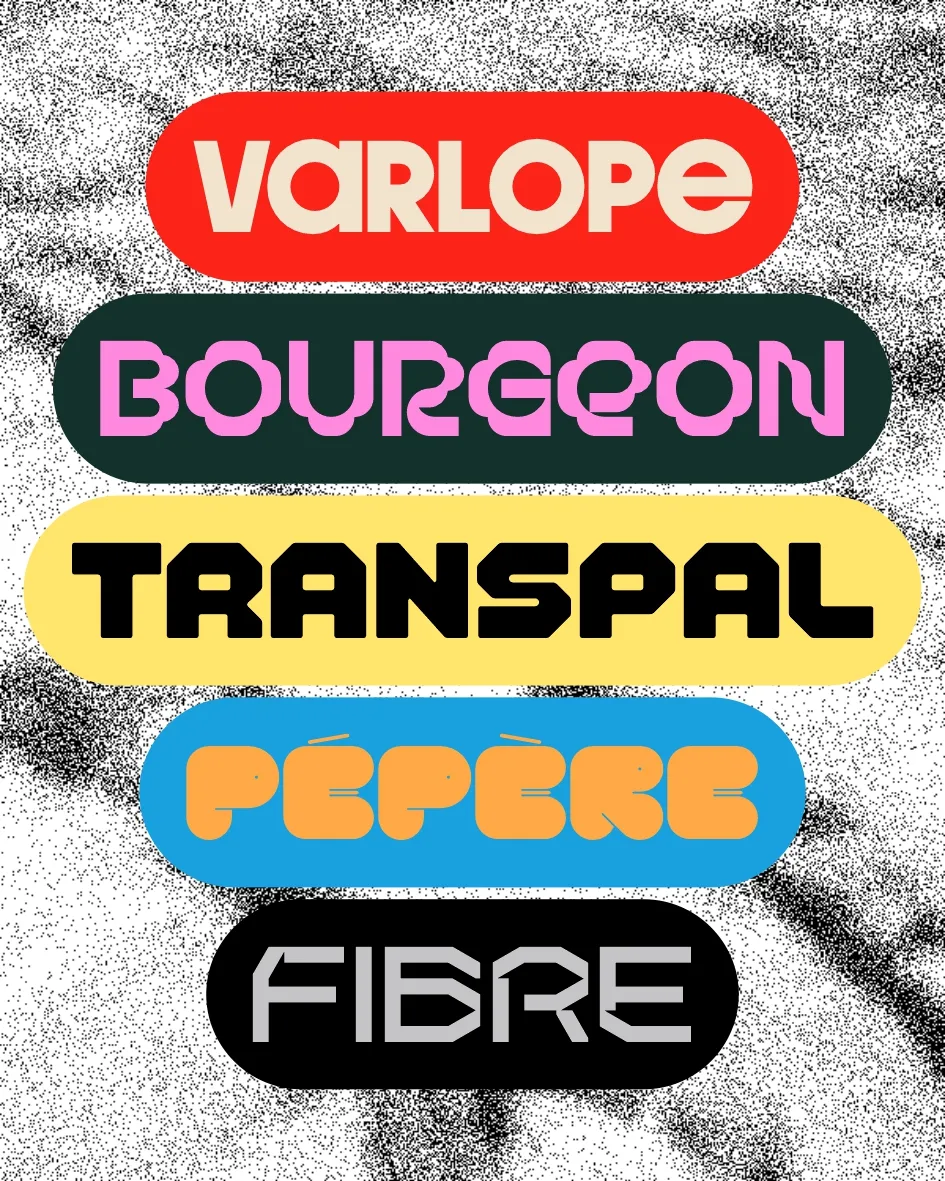
Double B Type
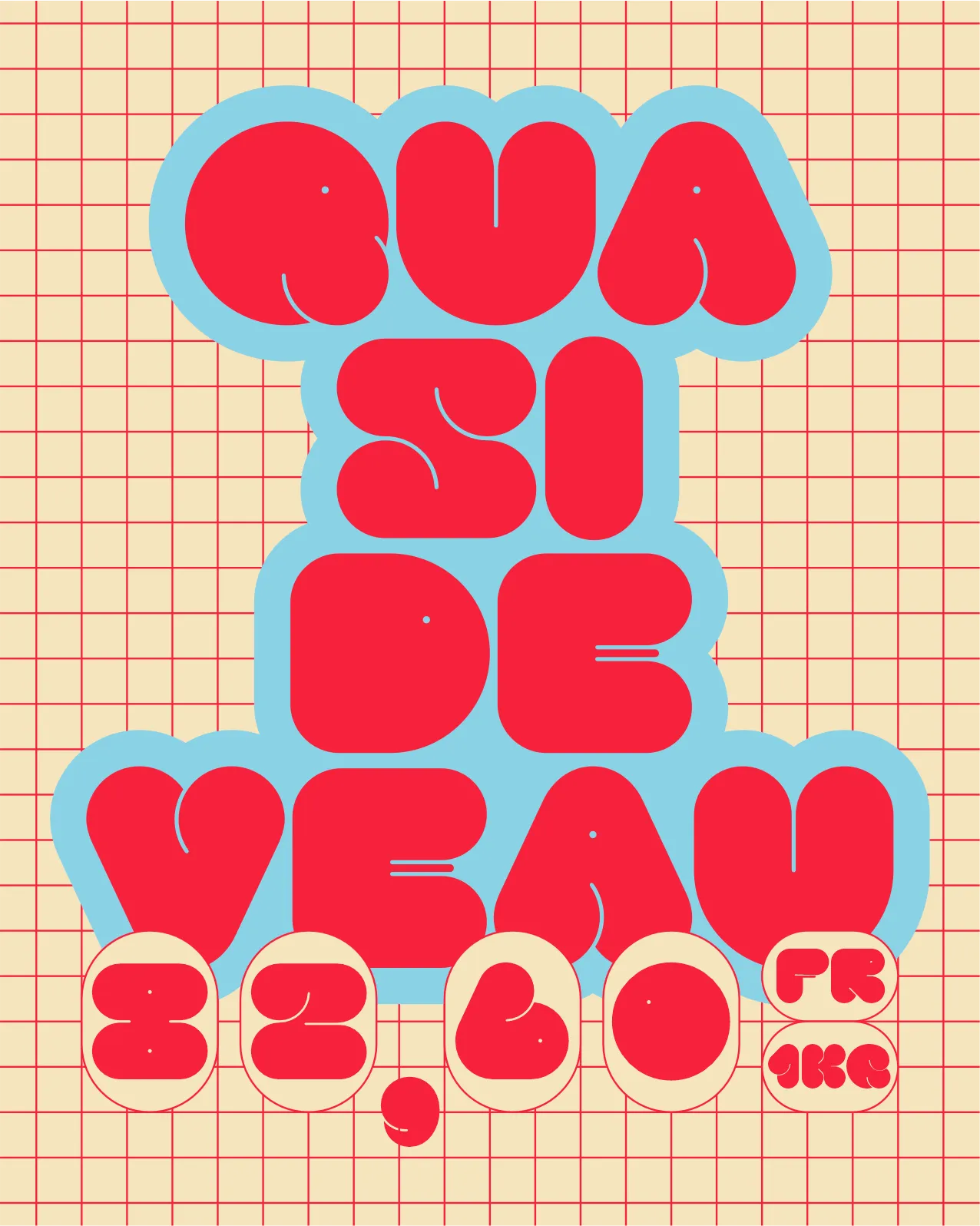
Pepere by Double B Type
Fibre by Double B Type
He continues: "Typefaces made to provoke surprise, break new ground and draw new contours. We've just released five new display typefaces, based on the pleasure of experimentation, as an echo to our work on identity. It's a foundry in v1, which will expand over time and grow with our research and feedback."
The tools helping us discover new fonts are evolving, too. Fonts Ninja, the browser extension used by more than 900,000 people, recently launched a major upgrade with smarter font detection powered by their own algorithm. Their Pinterest-like platform now lists over 150,000 fonts from foundries worldwide.
Fonts Ninja
But what of the typefaces themselves? Read on and discover six new releases this July that could help bring your creative projects to life.
1. Lost by Federico Parra Barrios
Lost was inspired by designer Federico Parra Barrios' move from Bogotá to Berlin in early 2024. His fascination with the city's embossed metal plaques led him to study how distortion altered letterforms.
This variable font ranges from Normal to Compressed width—as letters narrow stems thin whilst junctions thicken and round out, echoing metal plaque distortions. Lost offers contemporary letterforms suited to expressive titling (narrow styles) and running text (standard width).
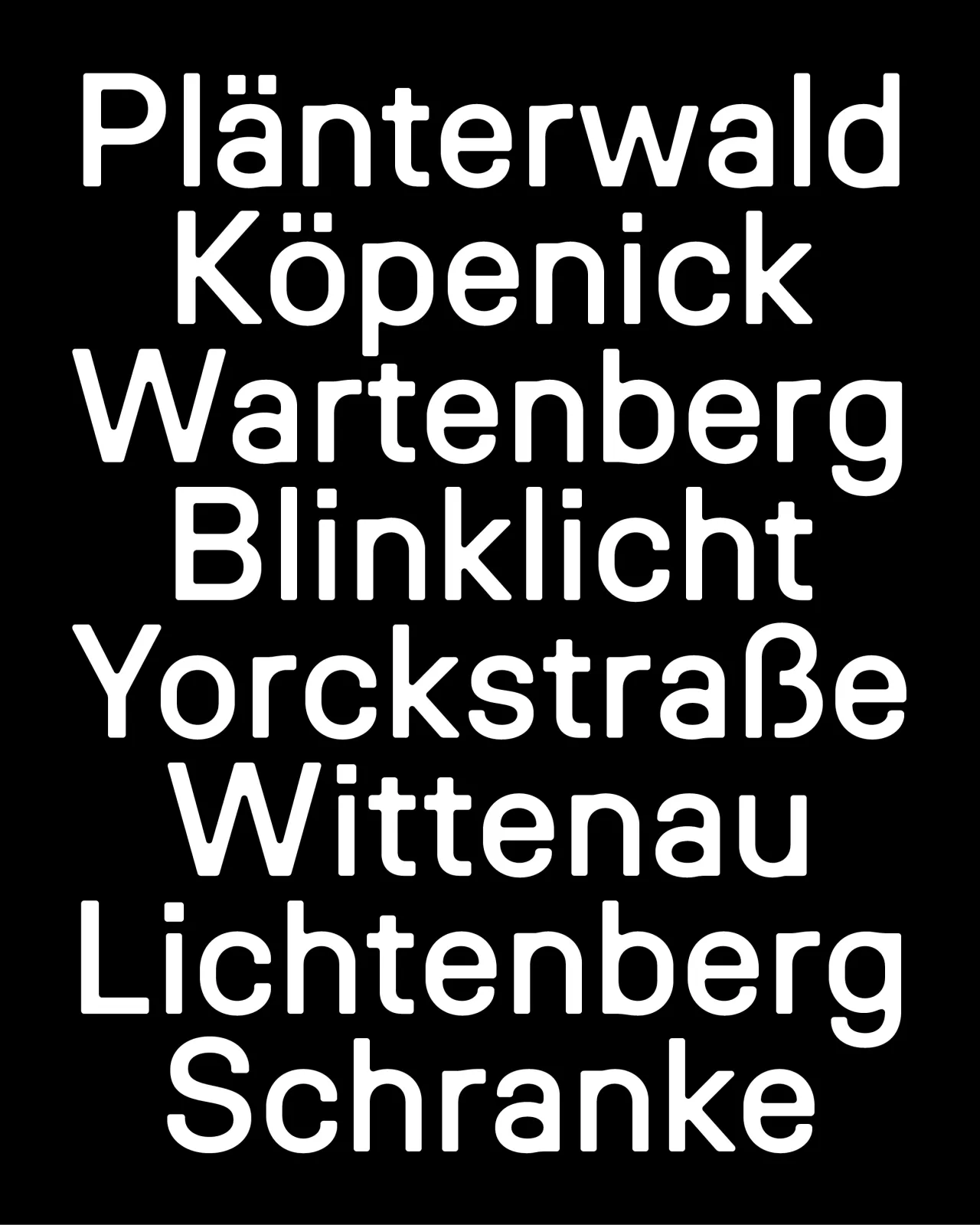
Lost by Federico Parra Barrios
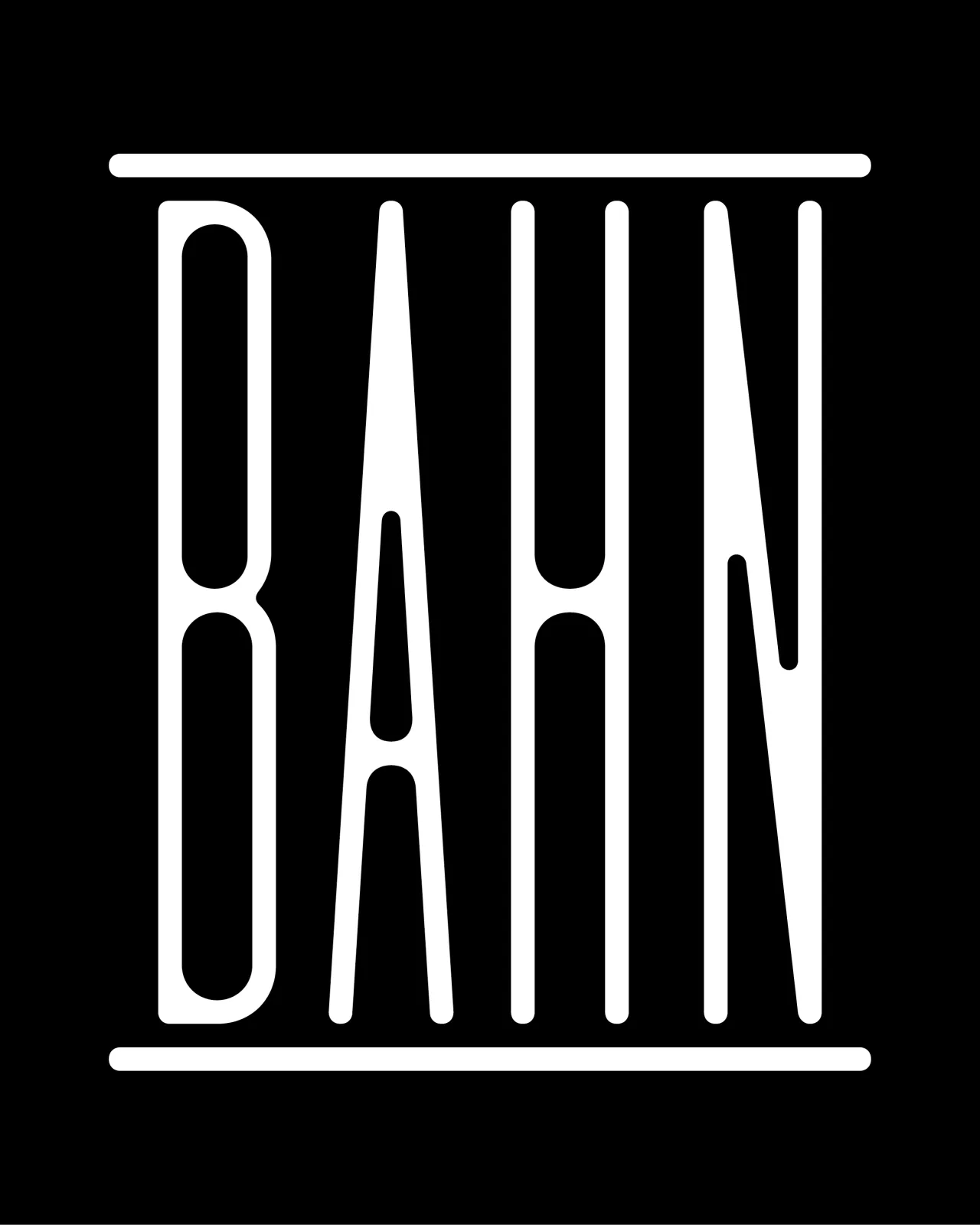
Lost by Federico Parra Barrios
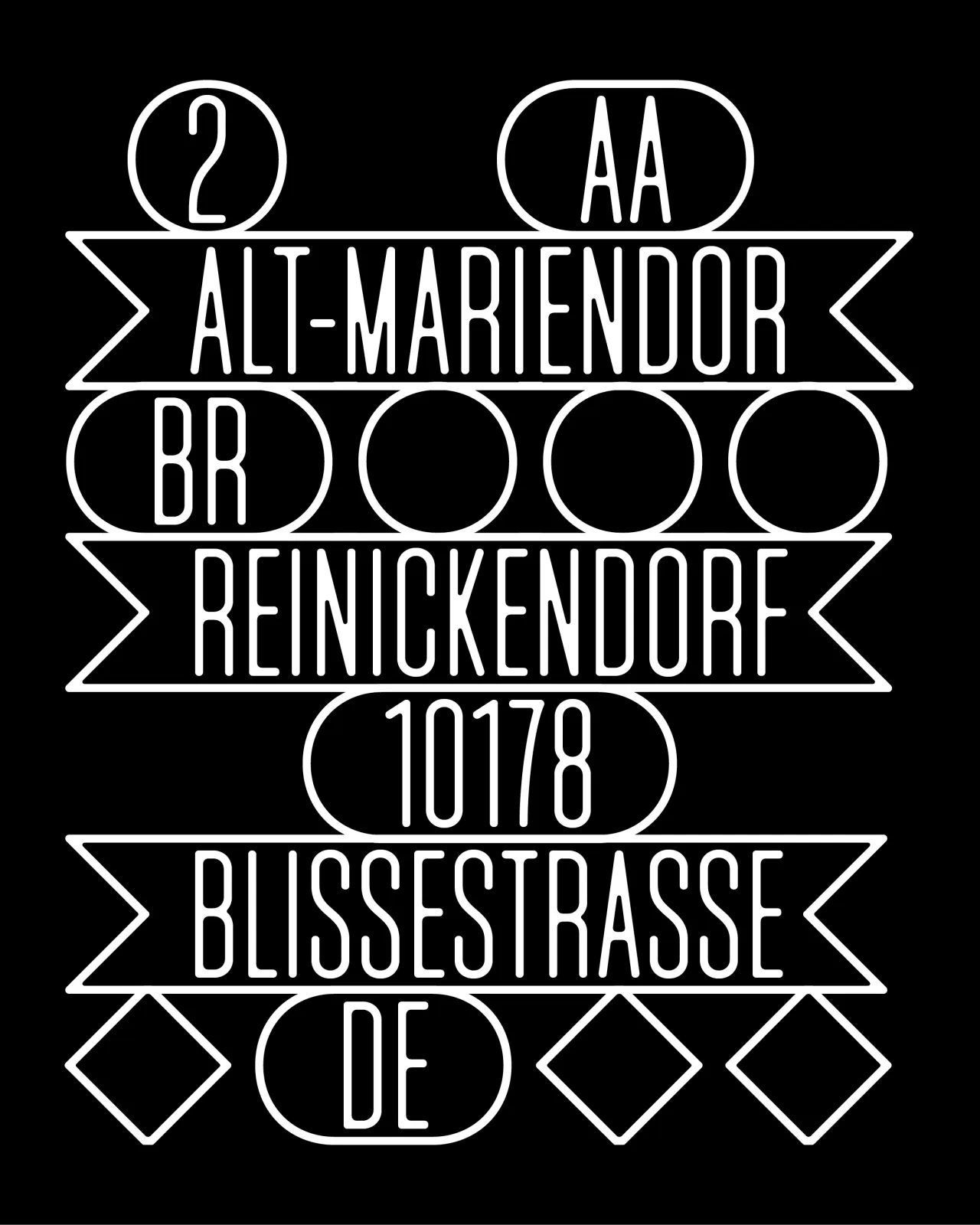
Lost by Federico Parra Barrios
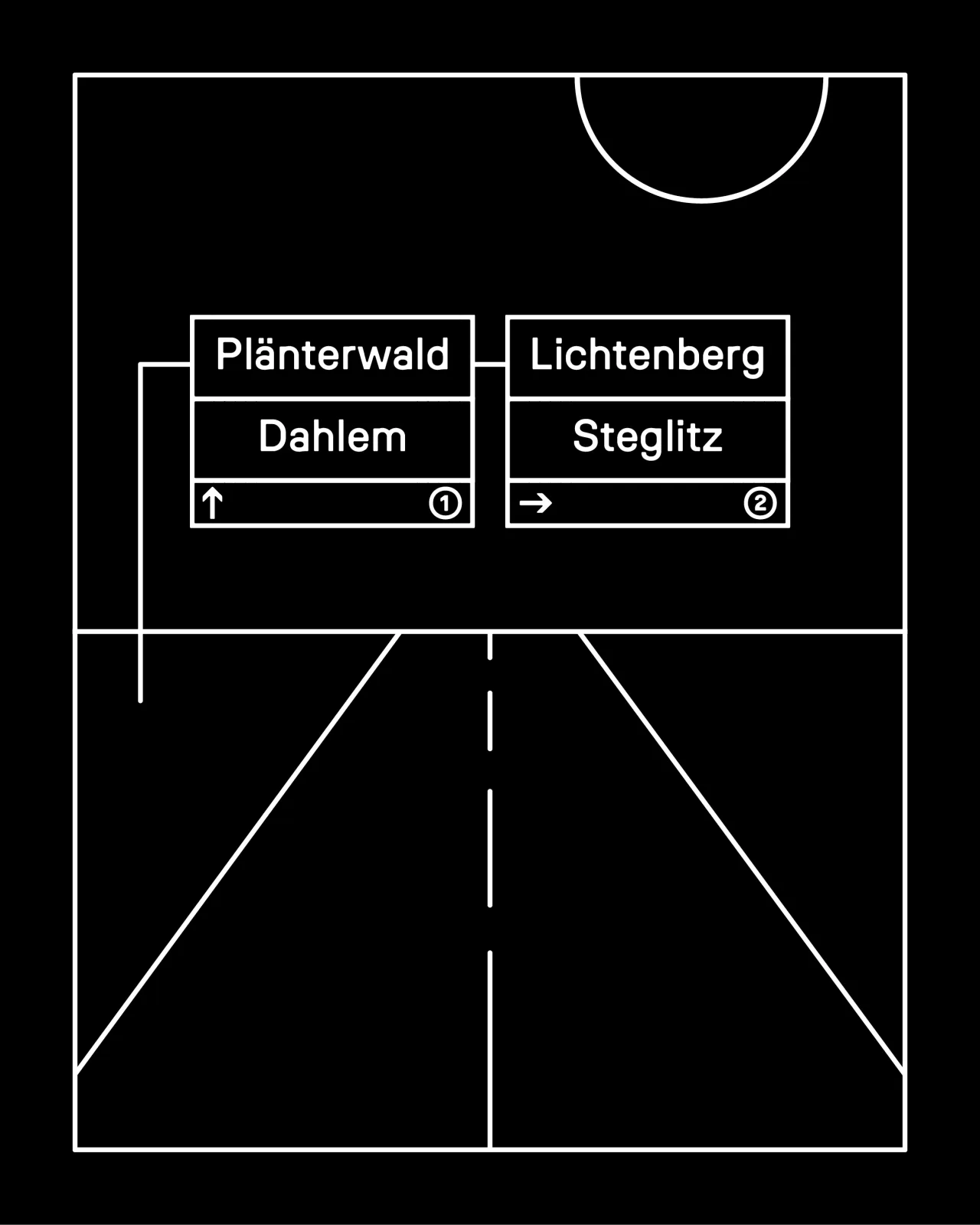
Lost by Federico Parra Barrios
2. Tausend by Christoph Koeberlin and Gabriel Richter
Tausend represents something special from Fontwerk, designed by Christoph Koeberlin with Gabriel Richter. Following bestsellers like Pangea and FF Mark, this thoughtful homage to Akzidenz-Grotesk brings a fresh perspective to the grotesque tradition.
The new superfamily demonstrates remarkable versatility, with variable font technology providing seamless transitions. Tausend honours typographic heritage whilst addressing modern design needs—familiar yet contemporary, bridging historical reference with practical application.
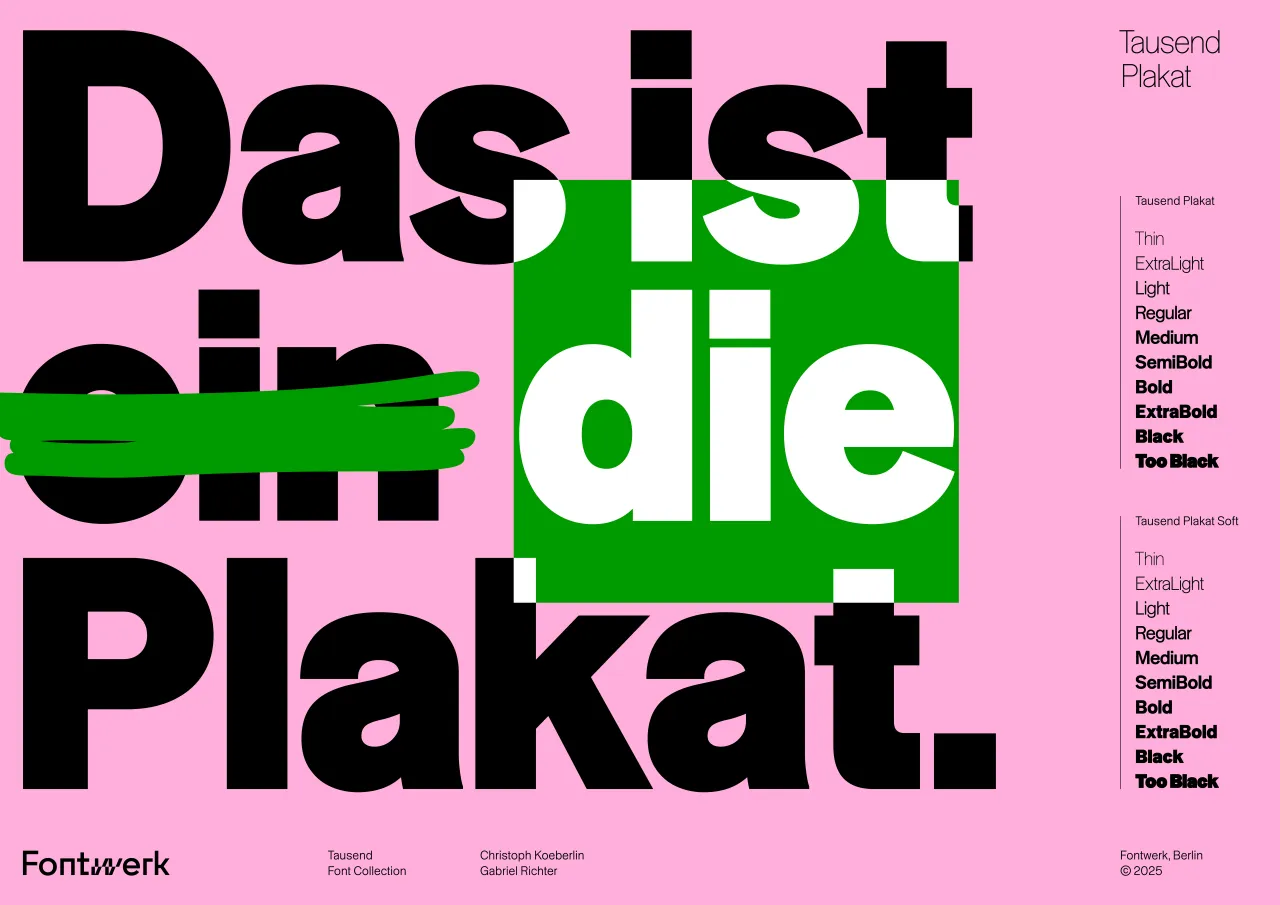
Tausend by Christoph Koeberlin and Gabriel Richter
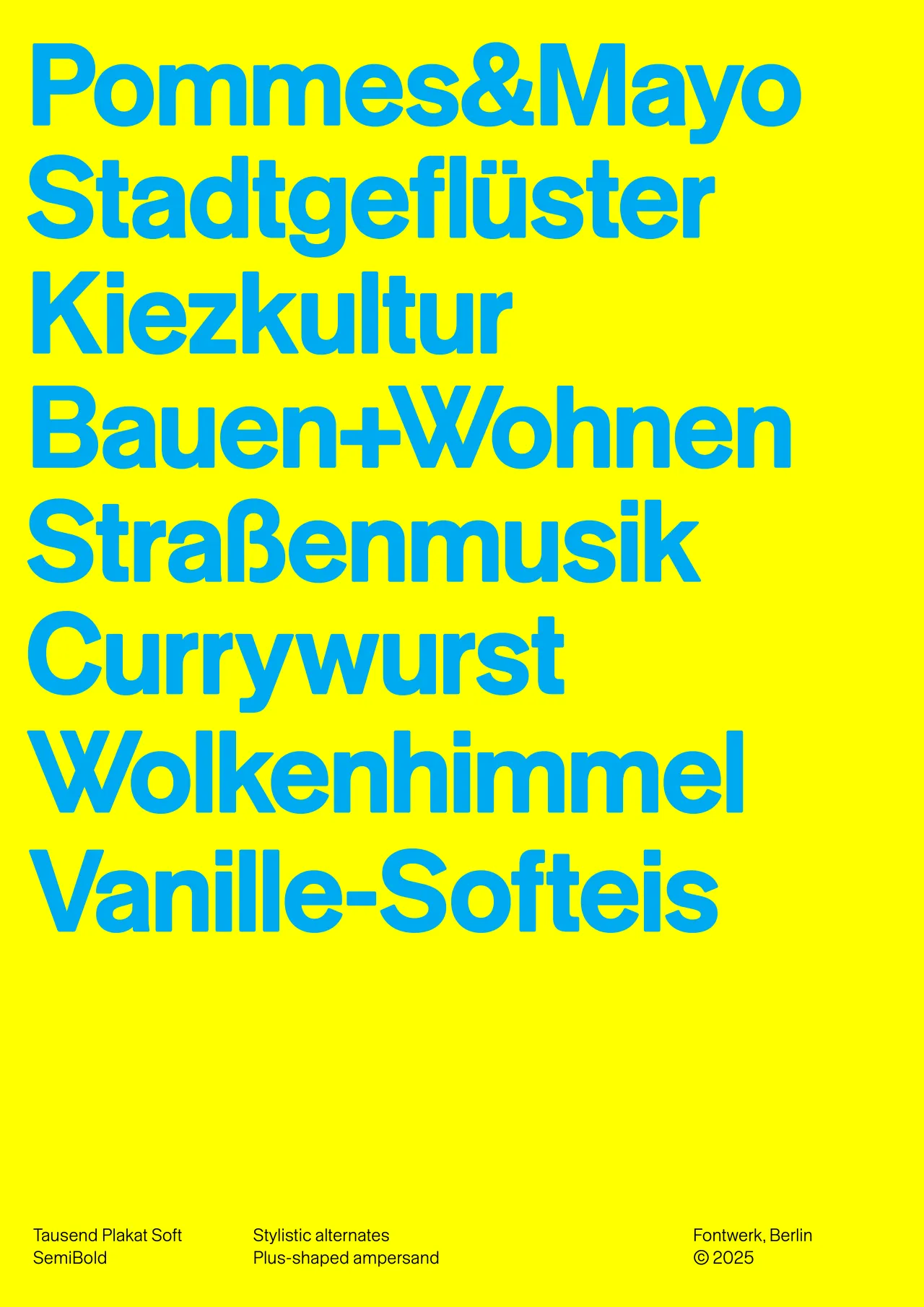
Tausend by Christoph Koeberlin and Gabriel Richter
3. RT Lately by RazziaType
RT Lately is a time-travelling witness to gothic evolution, building on over a century of technological and stylistic transitions. Mirco Schiavone's design draws from Times Gothic (1906) and Franklin Gothic, reinterpreting their brutal geometry into softer, warmer shapes.
The typeface features generously wide proportions with geometric round letters, horizontally cut terminals, and narrow apertures. Square punctuation contrasts beautifully with circular shapes, whilst stylistic alternates (single-storey a and g) can emphasise its geometric appearance when activated.
RT Lately by RazziaType
4. Bus Sign by Applied Systems
Bus Sign draws inspiration from early 1900s UK transport signage, specifically double-decker bus route signs. This tall, condensed sans-serif captures the essence of such original signage and is enhanced by modern detailing.
SLTF Rigale is bold, funky and irresistibly playful. Designed to inject life into creative projects, it boasts curvy forms, a wide stance and distinctive ink traps. In short, it's full of personality for designers wanting to stand out: it creates punchy, expressive impact whilst maintaining technical quality.
Nicely walking the line between retro flair and contemporary confidence, this typeface would be a good choice for branding, packaging and social media graphics.
SLTF Rigale by Silver Stag Type